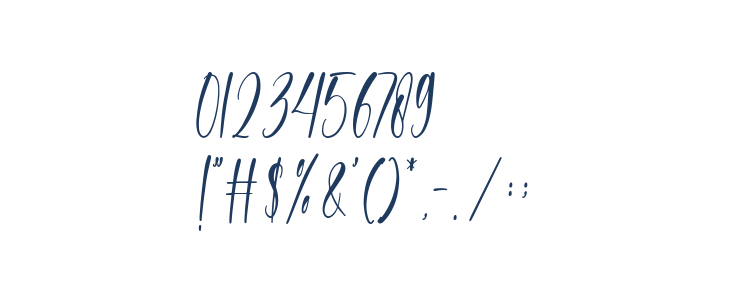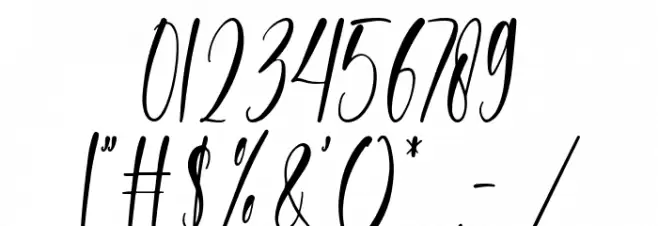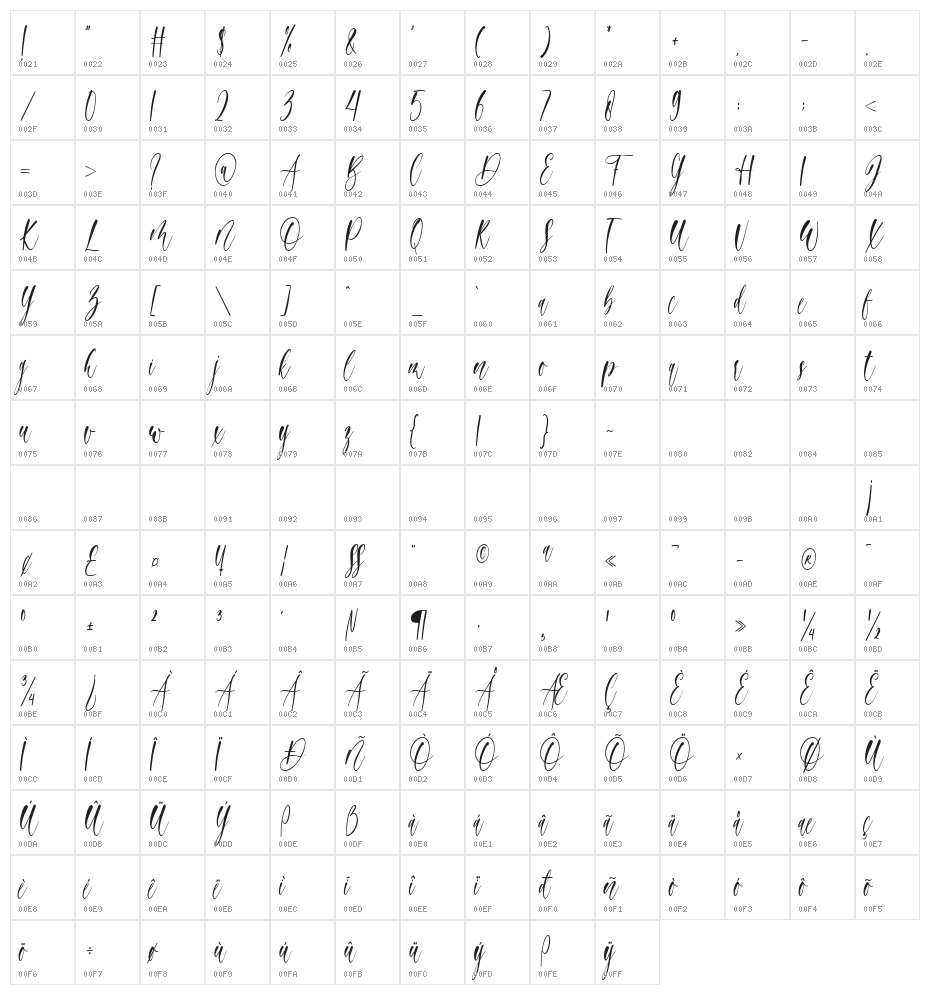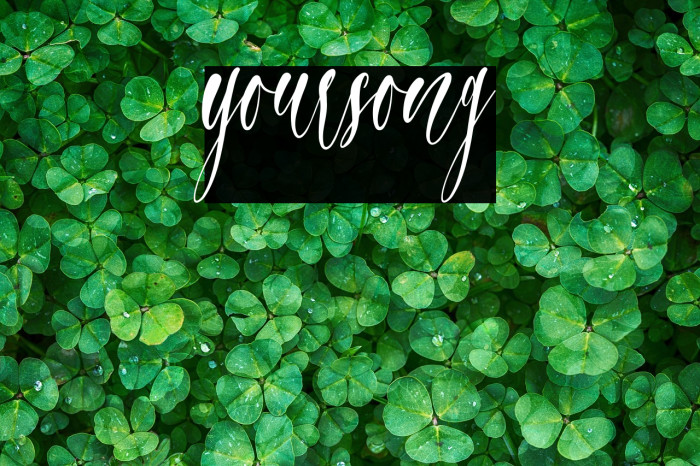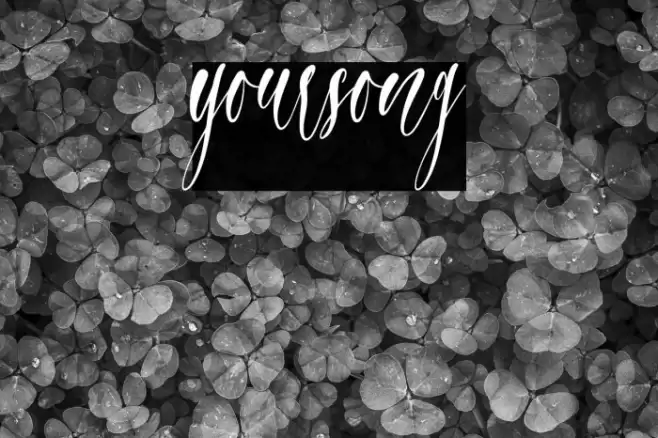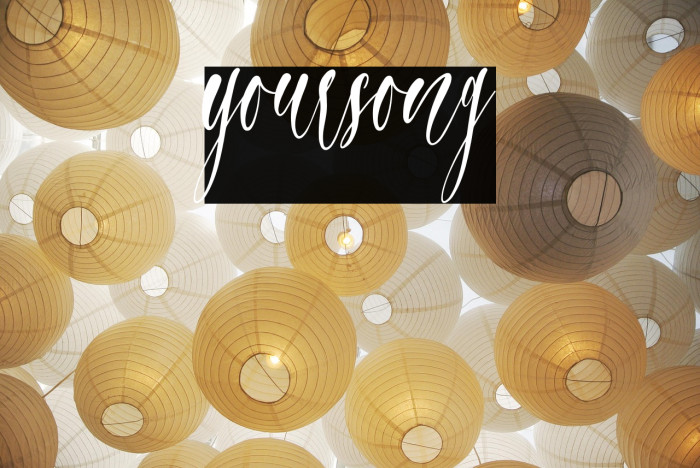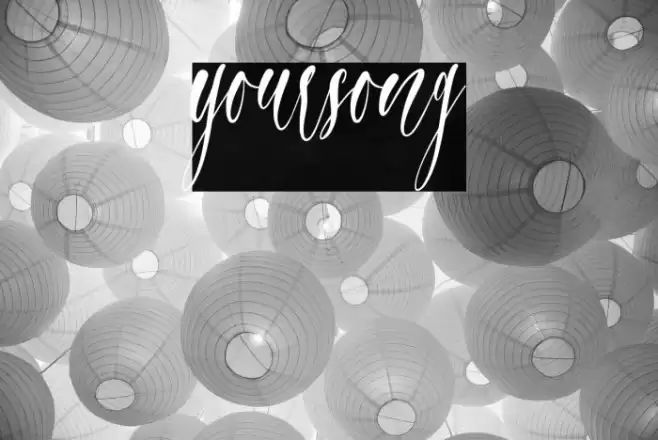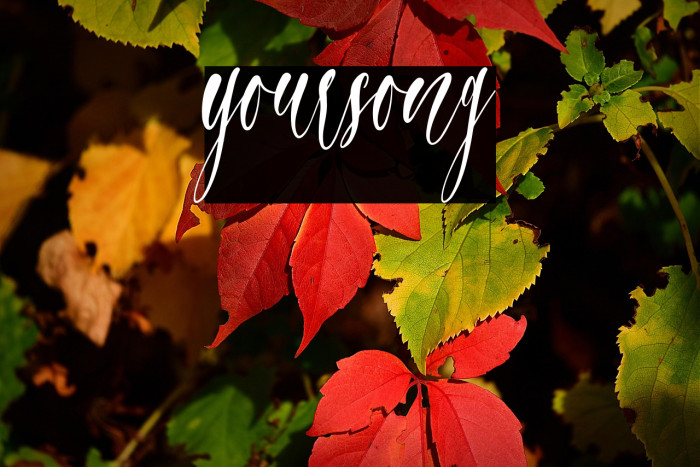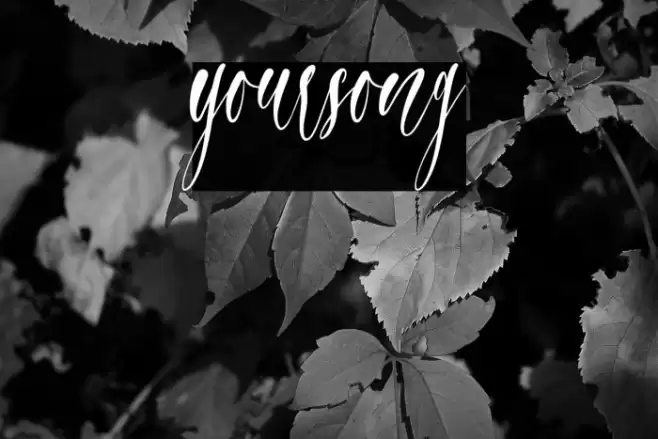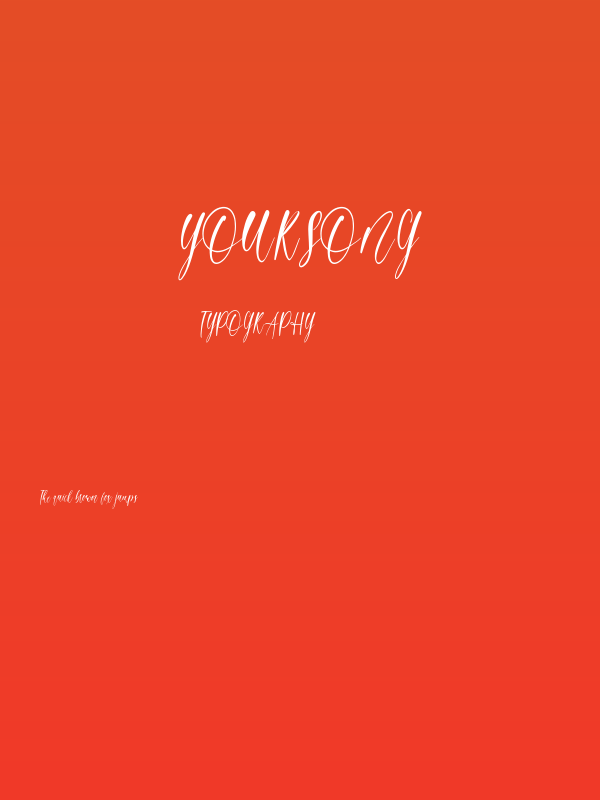
yoursong Font
yoursong Description
This font features a flowing, cursive style with elegant, sweeping lines that give it a sophisticated and artistic appearance. The characters are connected, enhancing the fluidity and grace of the text. The uppercase letters are bold and expressive, while the lowercase letters maintain a consistent style, adding to the overall harmony of the design. The numerals and special characters are crafted with the same attention to detail, ensuring a cohesive look across all elements. This font is ideal for projects that require a touch of elegance and creativity.
| Proposed Projects | Ideal for wedding invitations, greeting cards, branding, and artistic projects. |